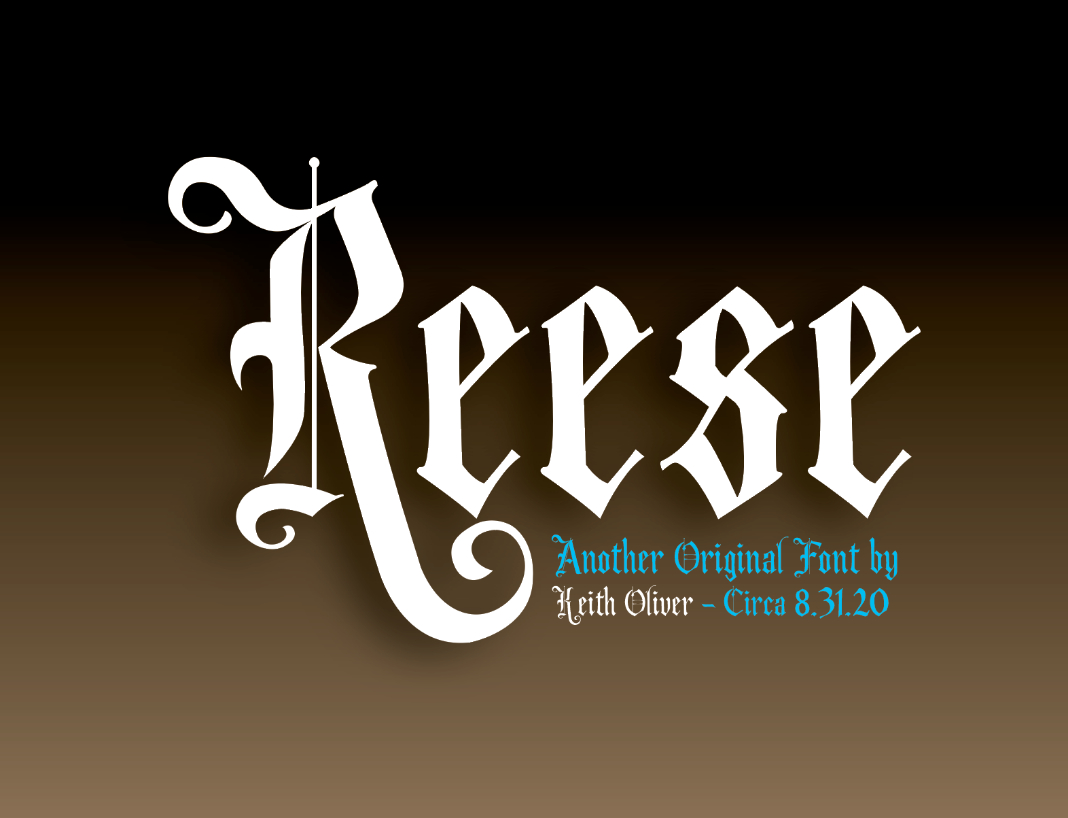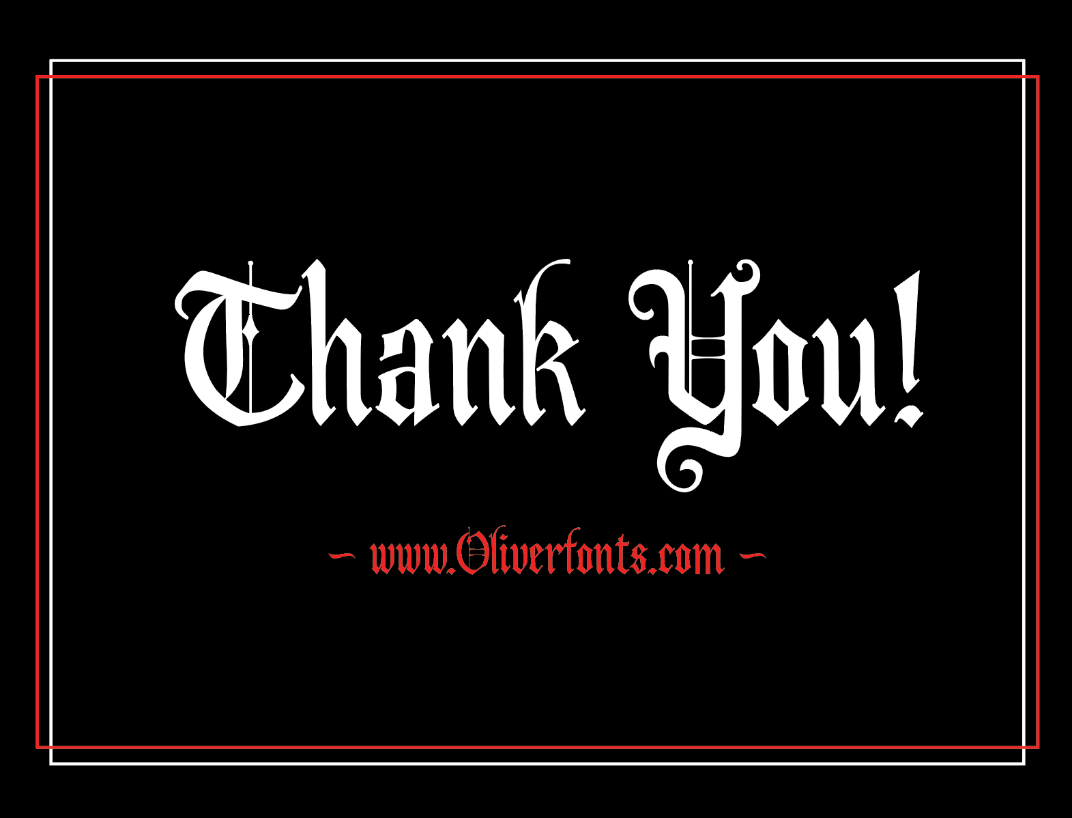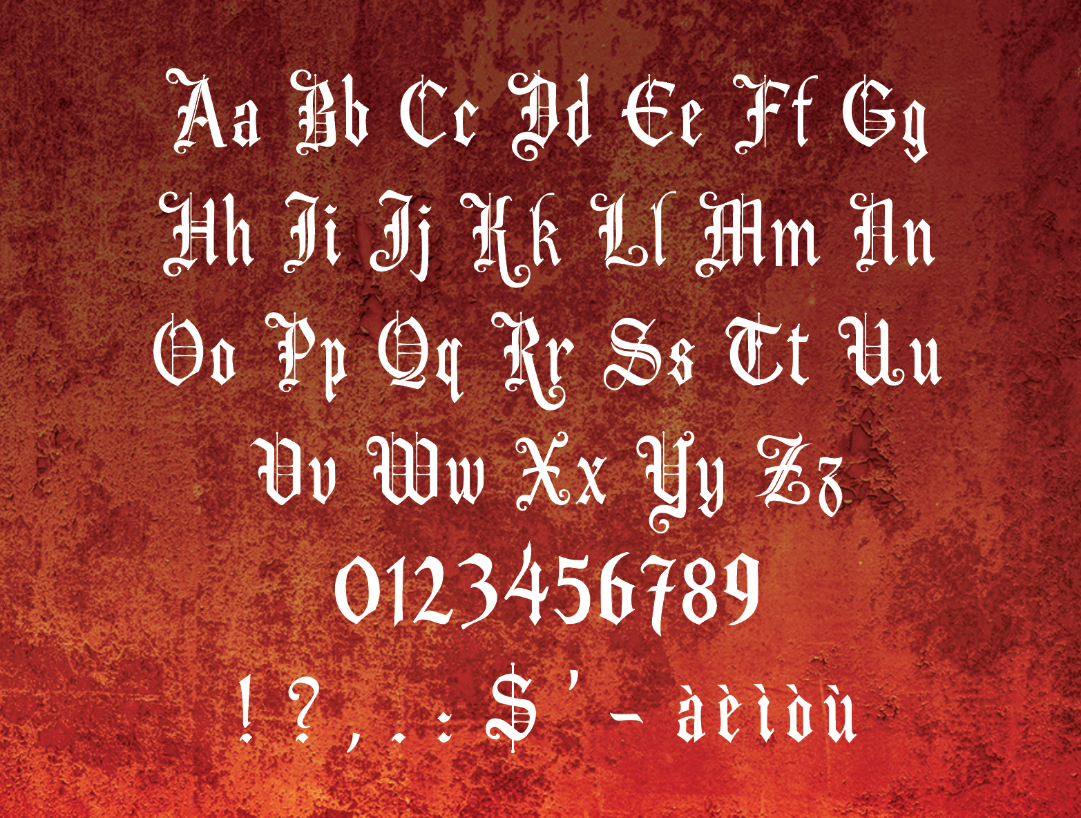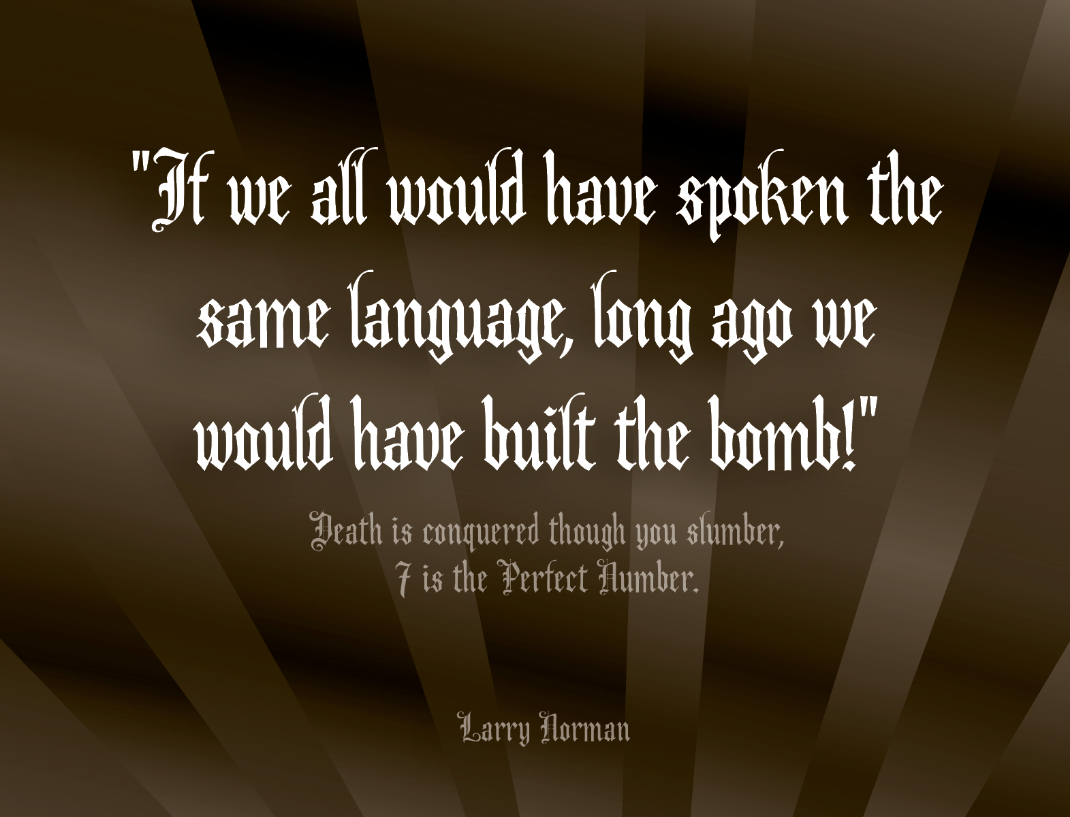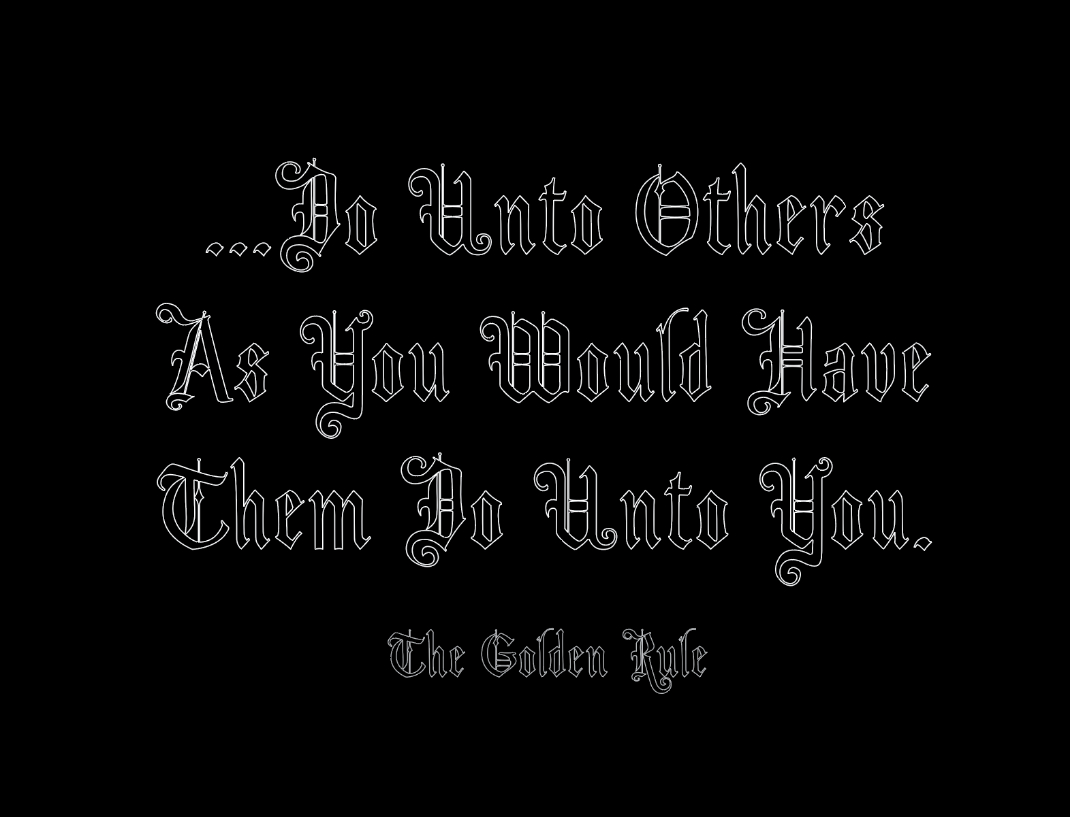
About Reese Font
Reese delivers an incredible vintage aesthetic. Use this serif font to add that special retro touch to any design idea you can think of!